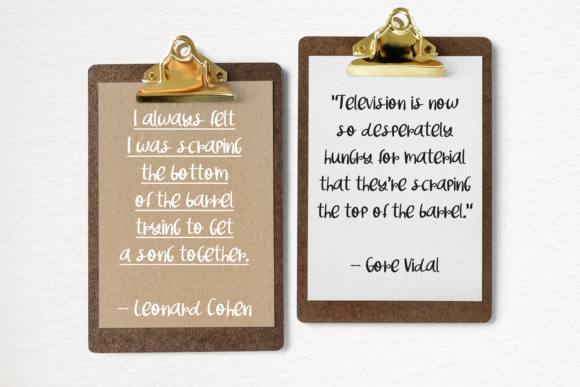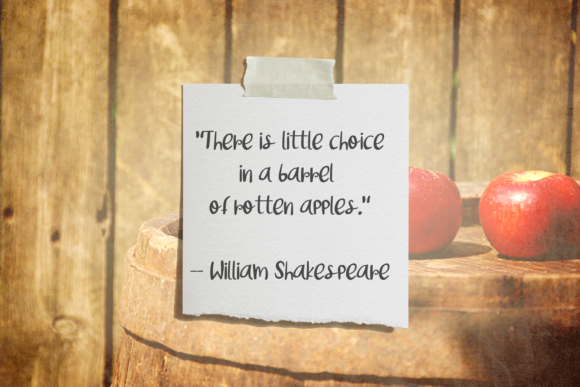
The Oak Barrel Font
db-ku.com - Script & Handwritten -- The Oak Barrel is a bouncy & cute handwritten font. Get inspired by its incredibly bold and lovely feel. Use this font to turn any design project into a piece of art!